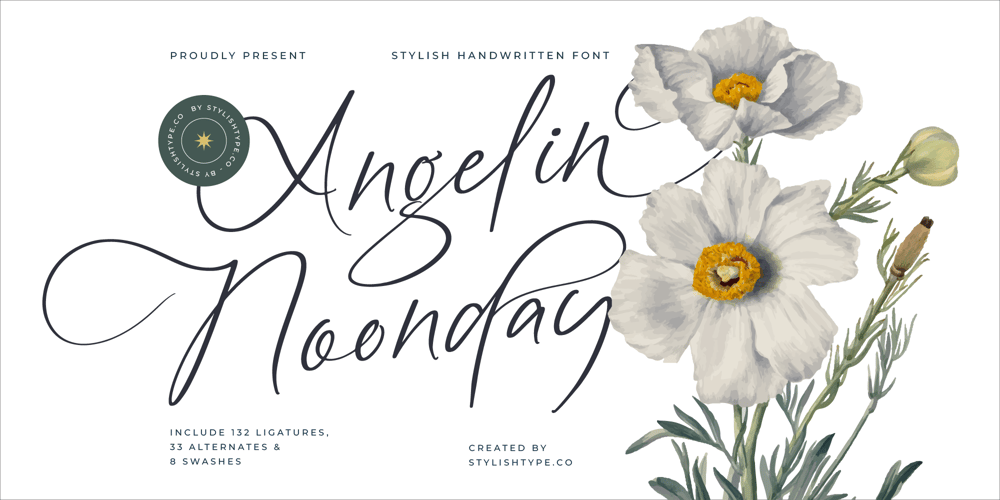
Angelin Noonday
Angelin Noonday font
Angelin Noonday Font Family was designed by Heru Utama Putra and published by Stylishtype Studio. Angelin Noonday contains 2 styles and family package options. Angelin Noonday – Stylish Handwritten Font , from Stylishtype , Suitable for any projects such as: logos, branding projects, homeware designs, product packaging, mugs, quotes, posters, shopping bags, t-shirts, book covers, name card, invitation cards, greeting cards, label, photography, watermark, special events, and all your other luxury and beautiful projects that need a Luxury Script taste.